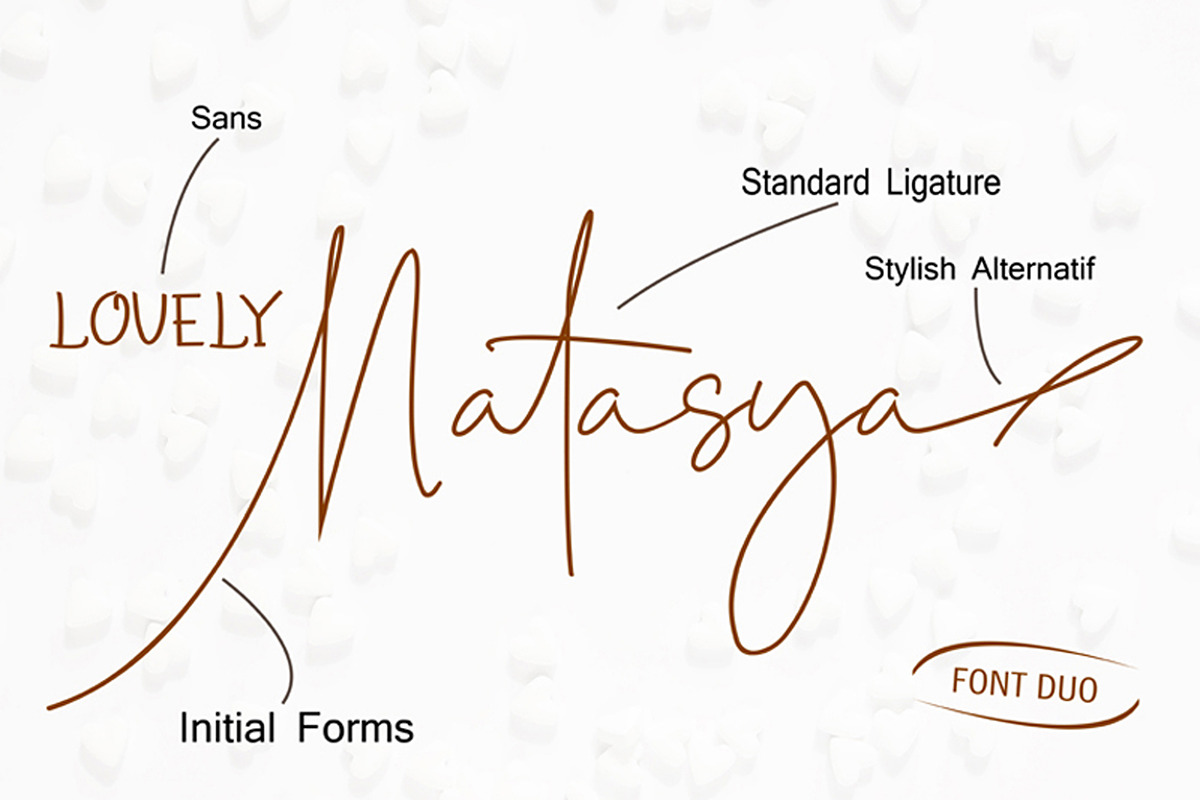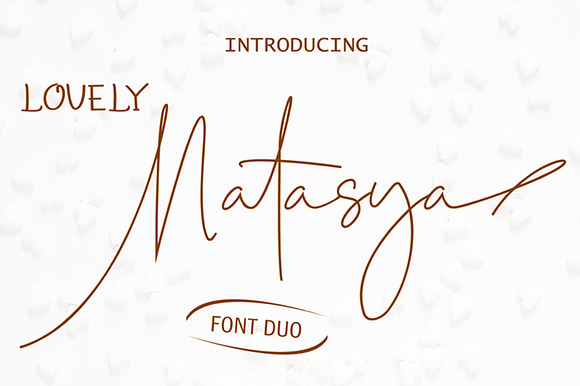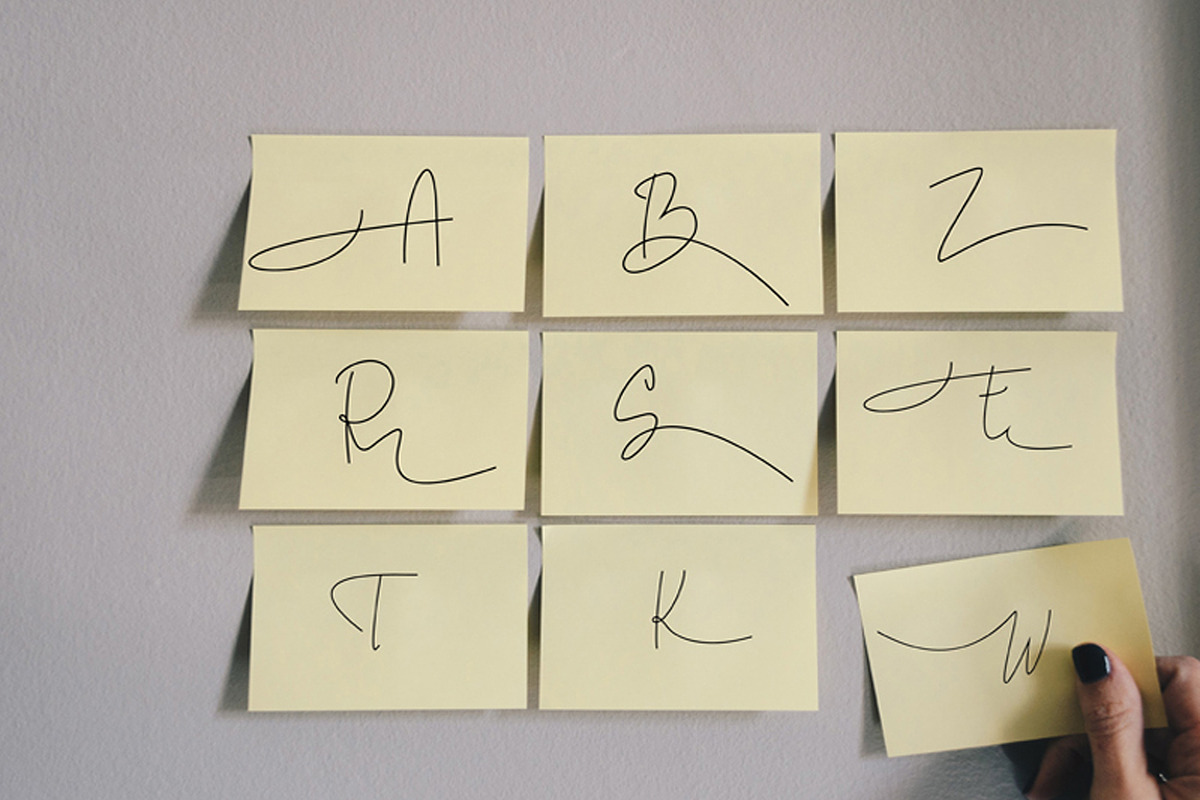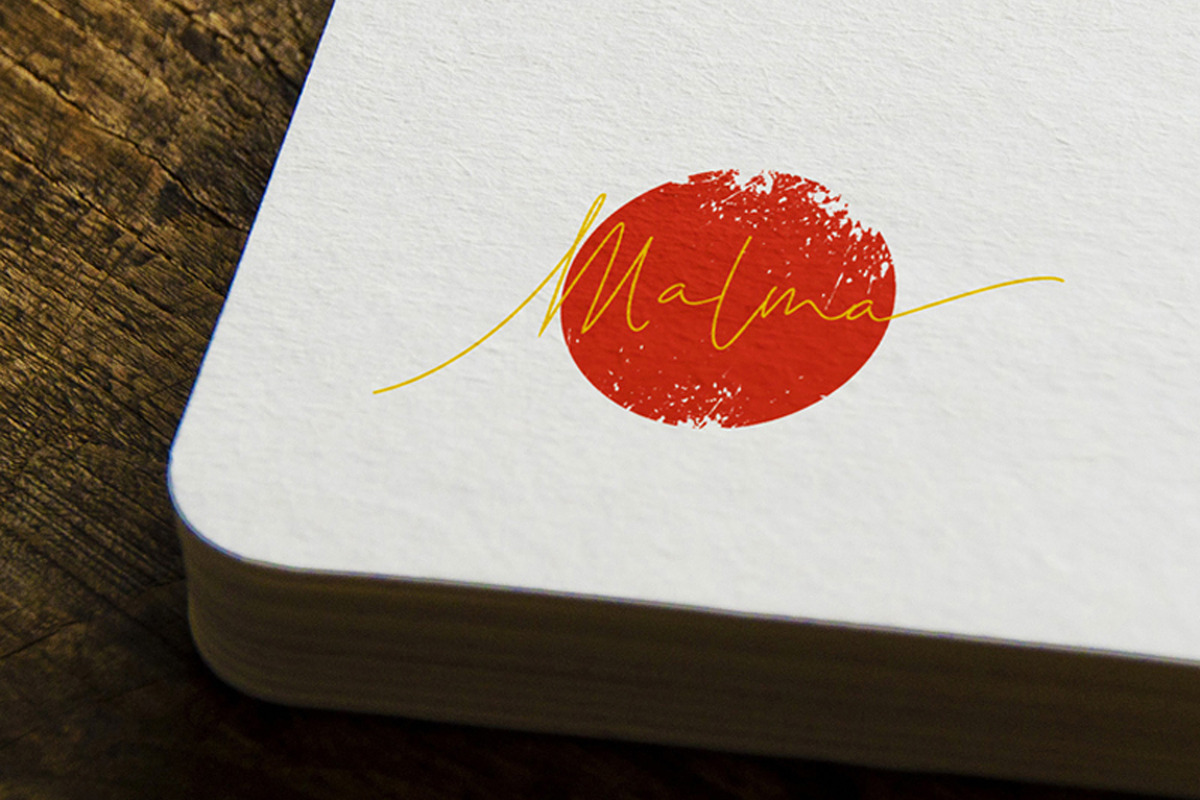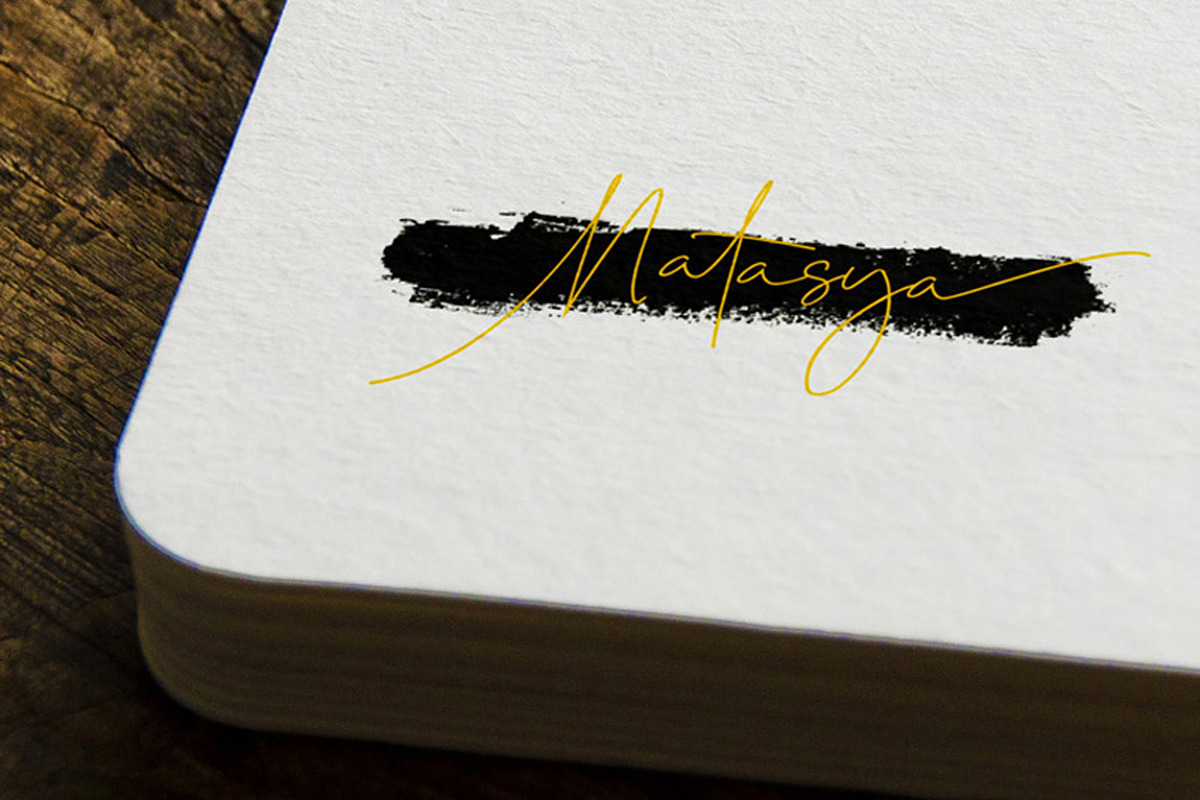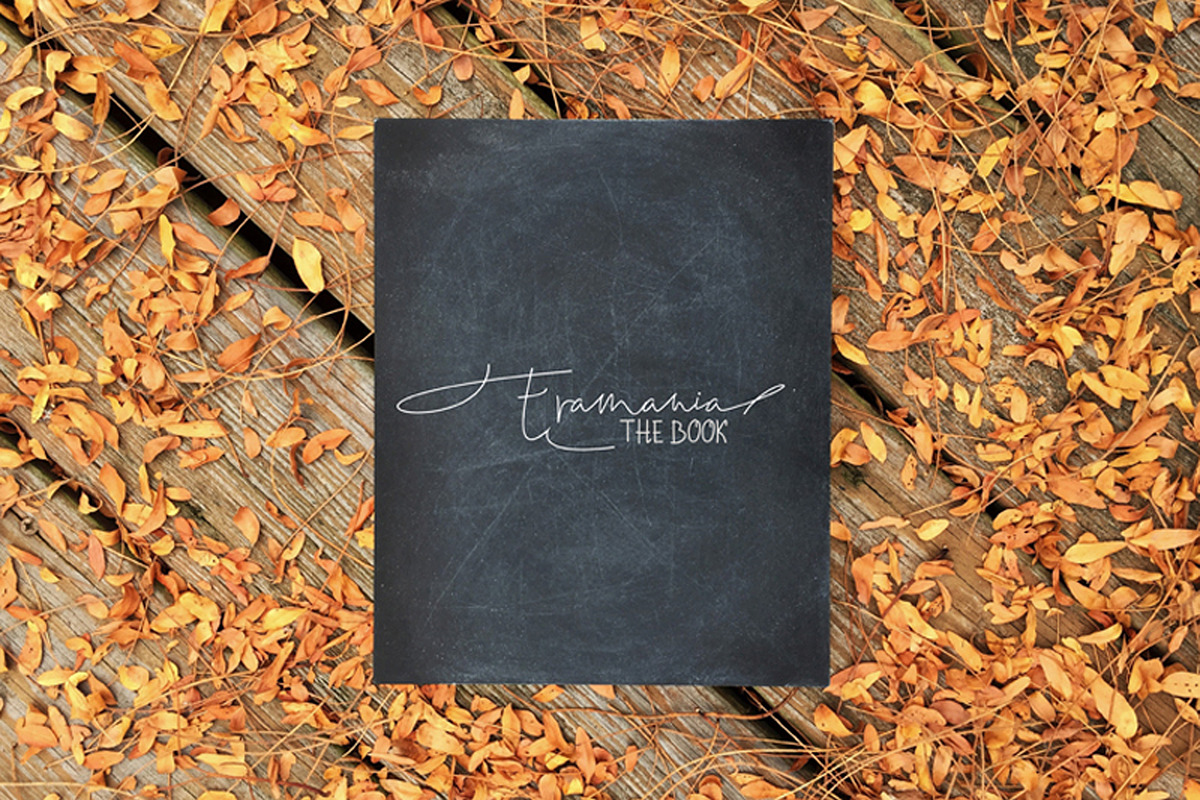
Lovely Natasya - Duo font
is a new variant of handmade script typography. with a signature style, and also written with the name sans present for you to complete your script font collection. This font has been enriched with alternative characters. Hopefully this helps to capture the soul of design. finally, there are no words to say other than "Success and enjoyment".
Initial Form Stylistic Alternate Stylistic Set 01-02 Ligatures
- This font has been enriched with alternative characters.